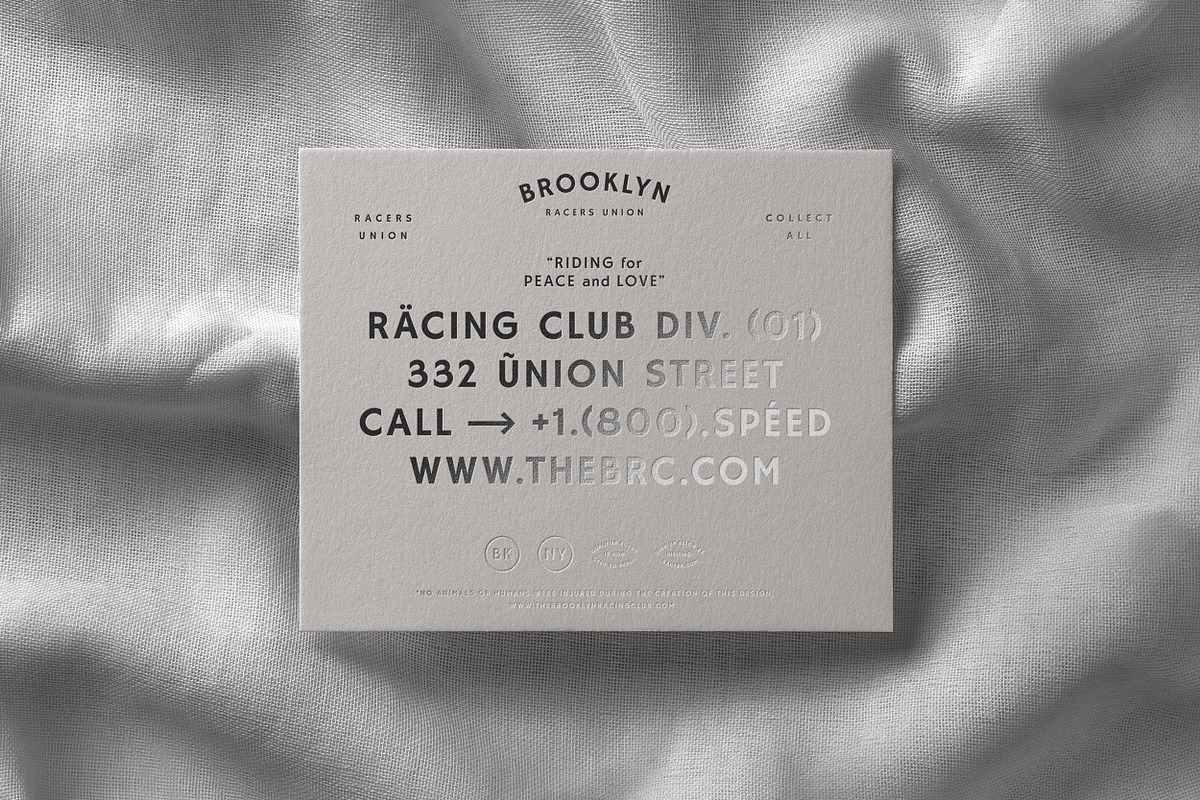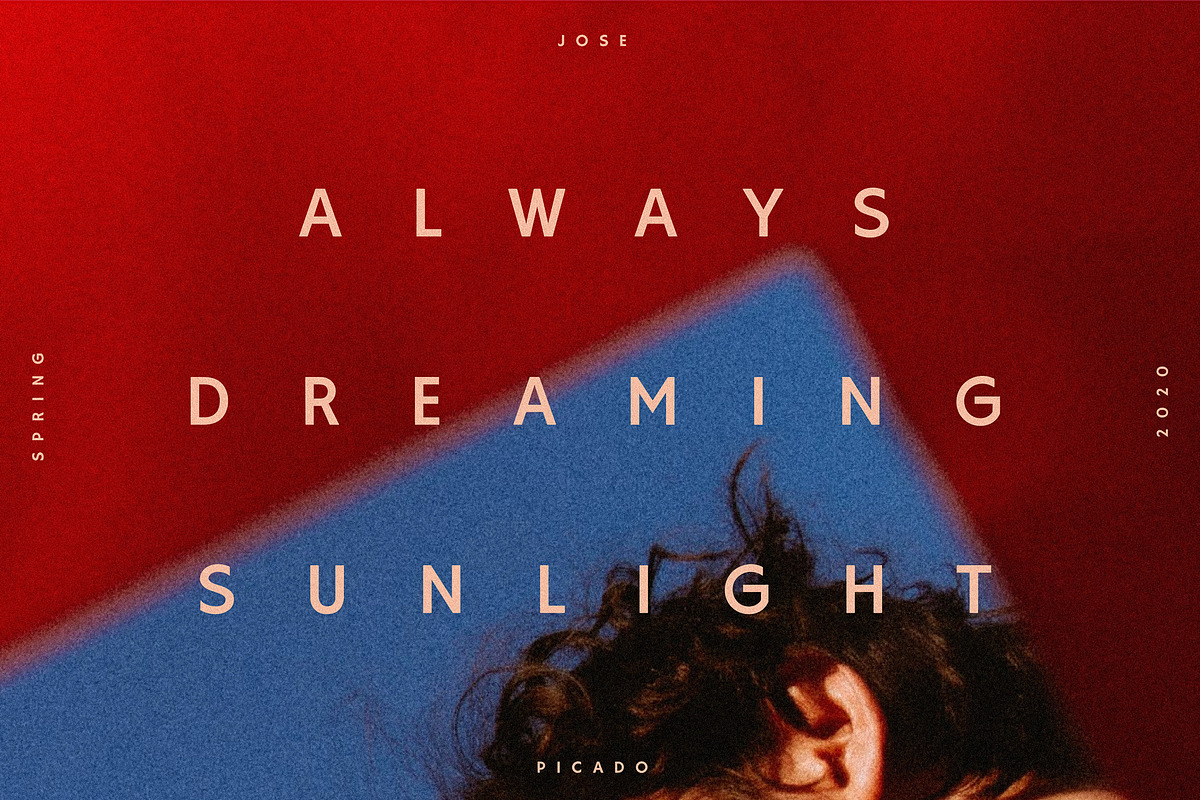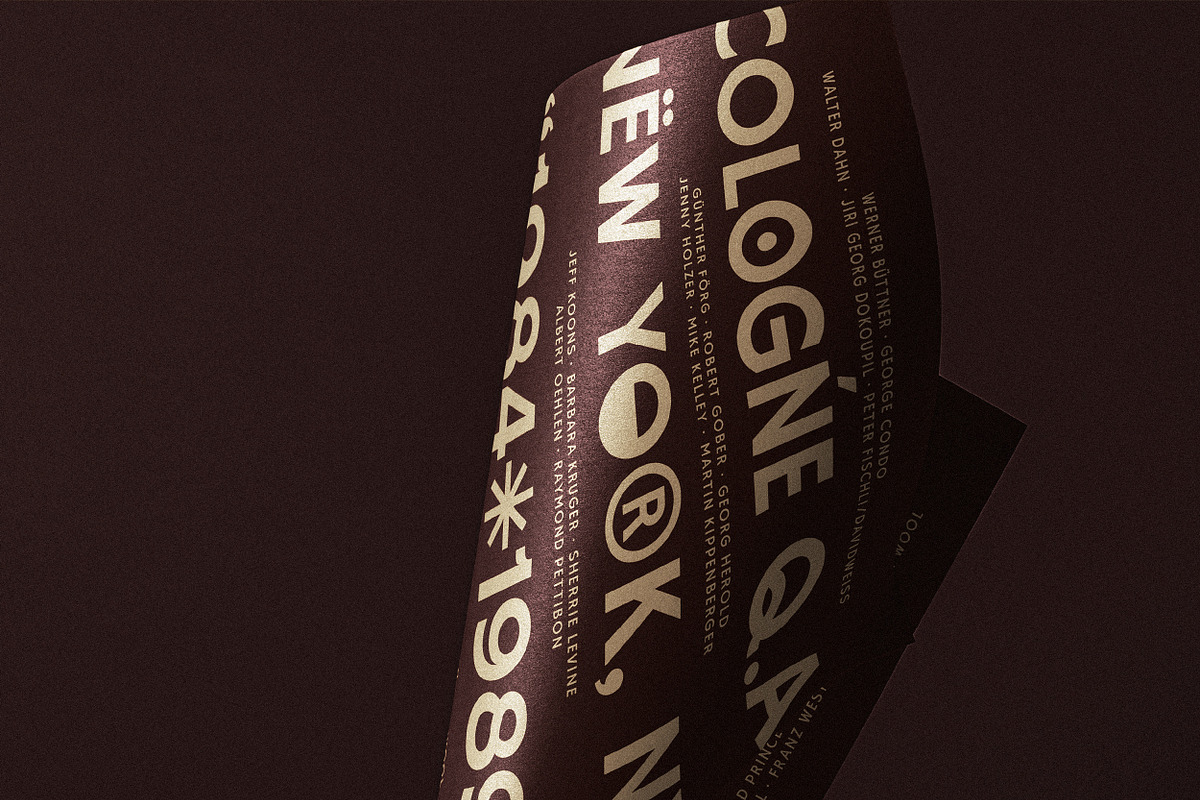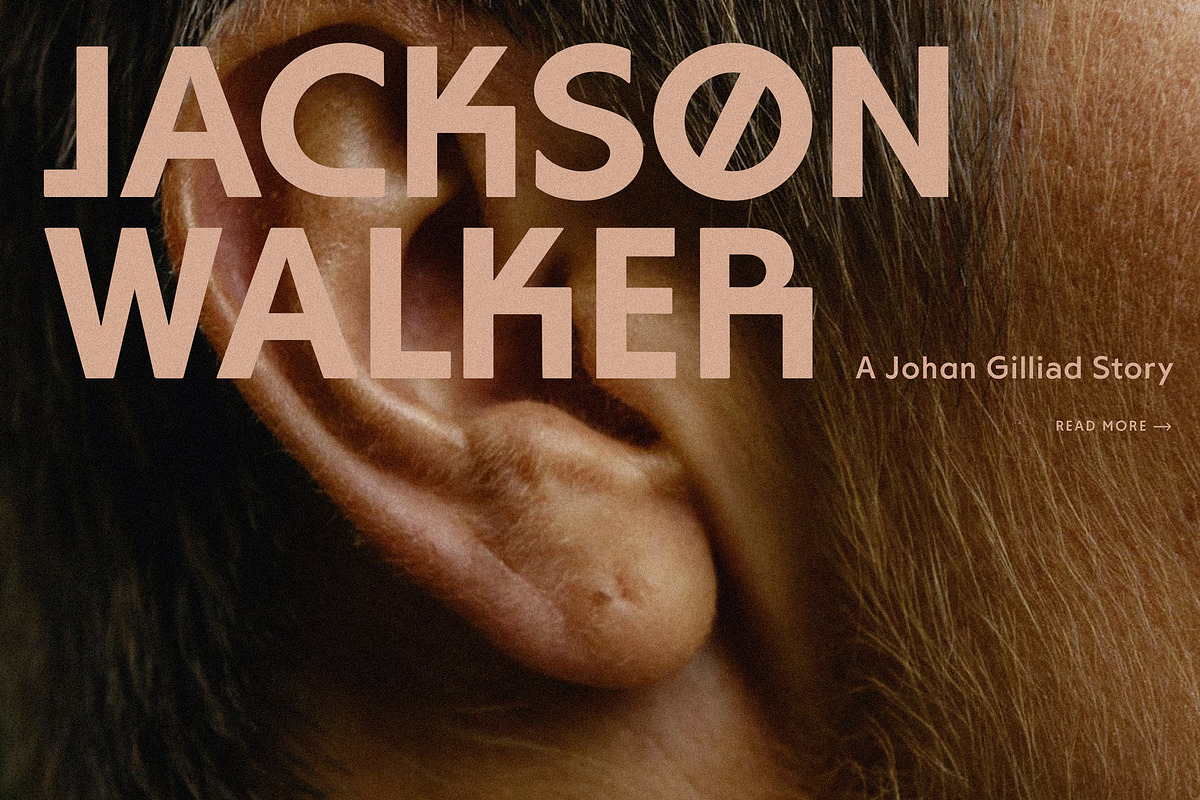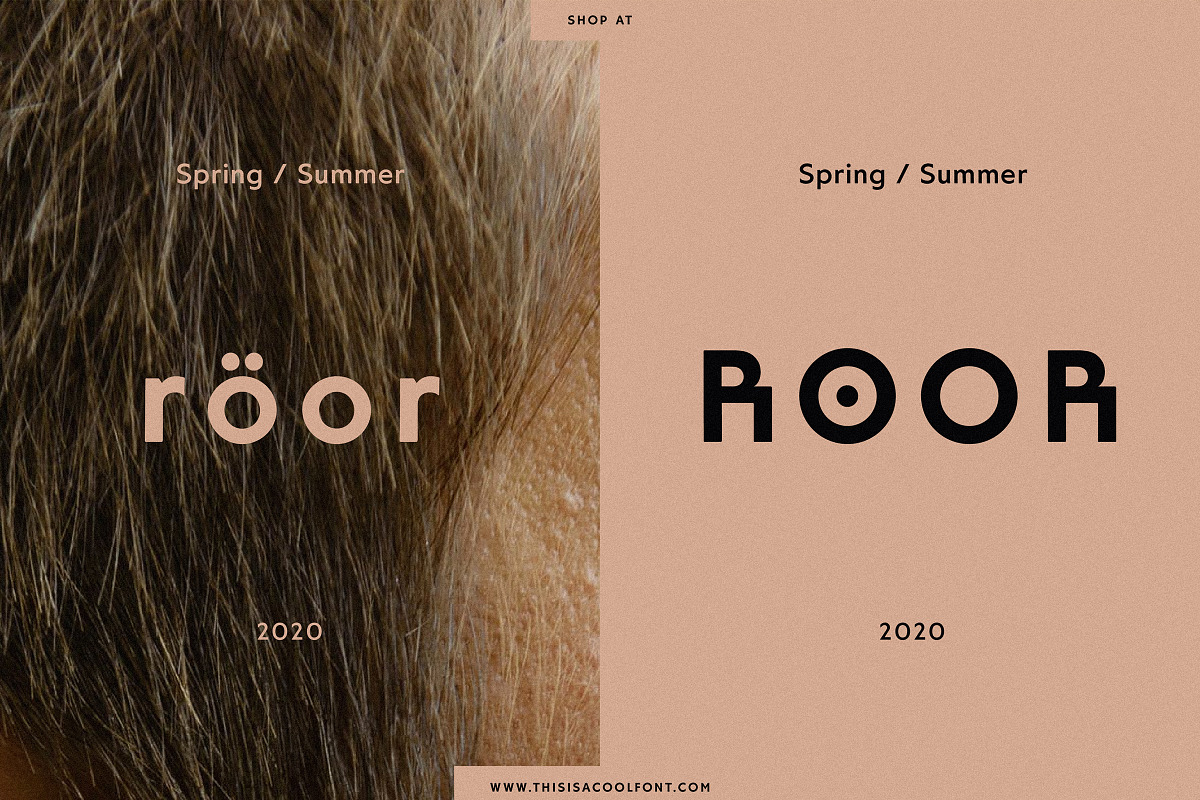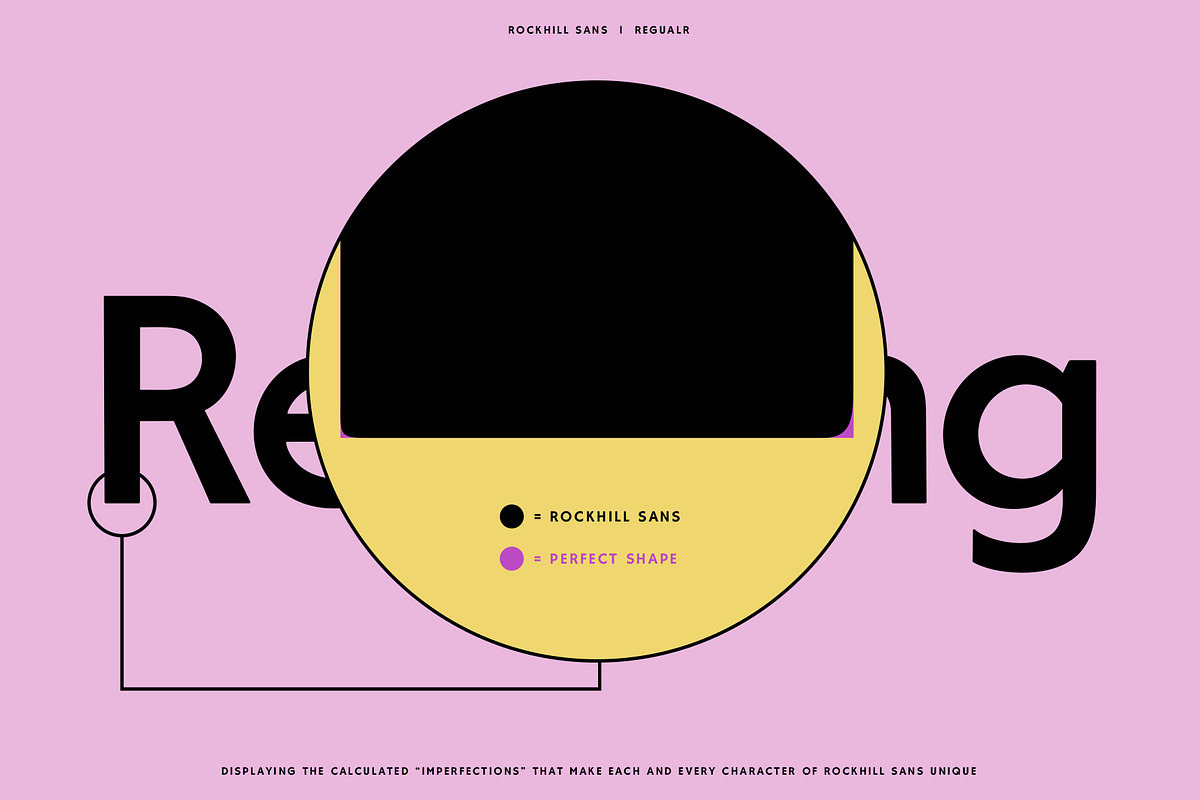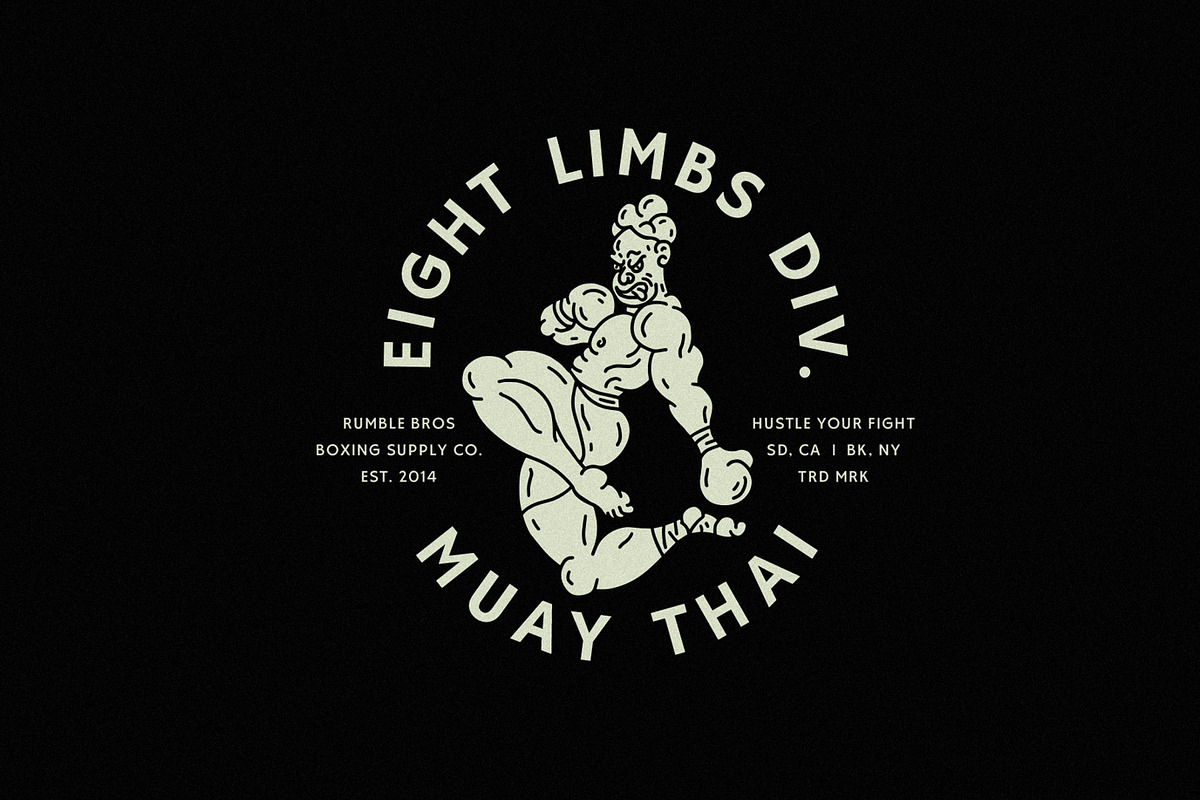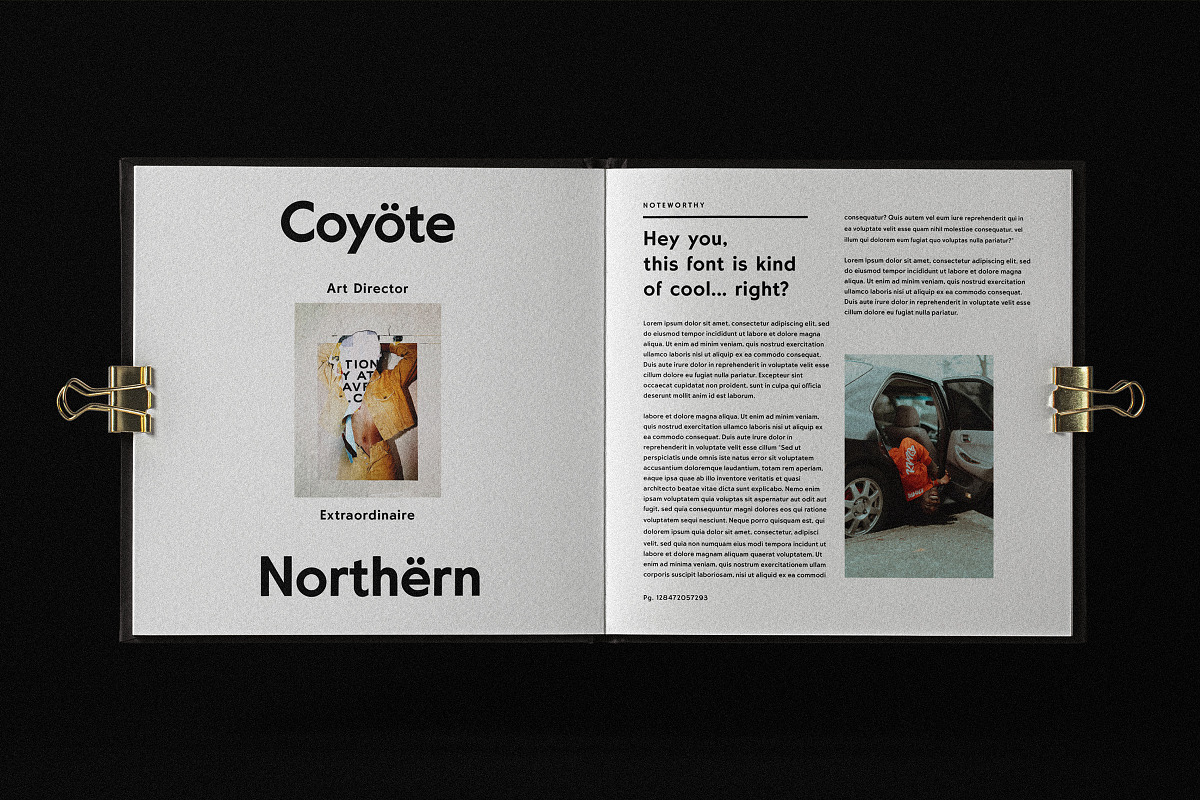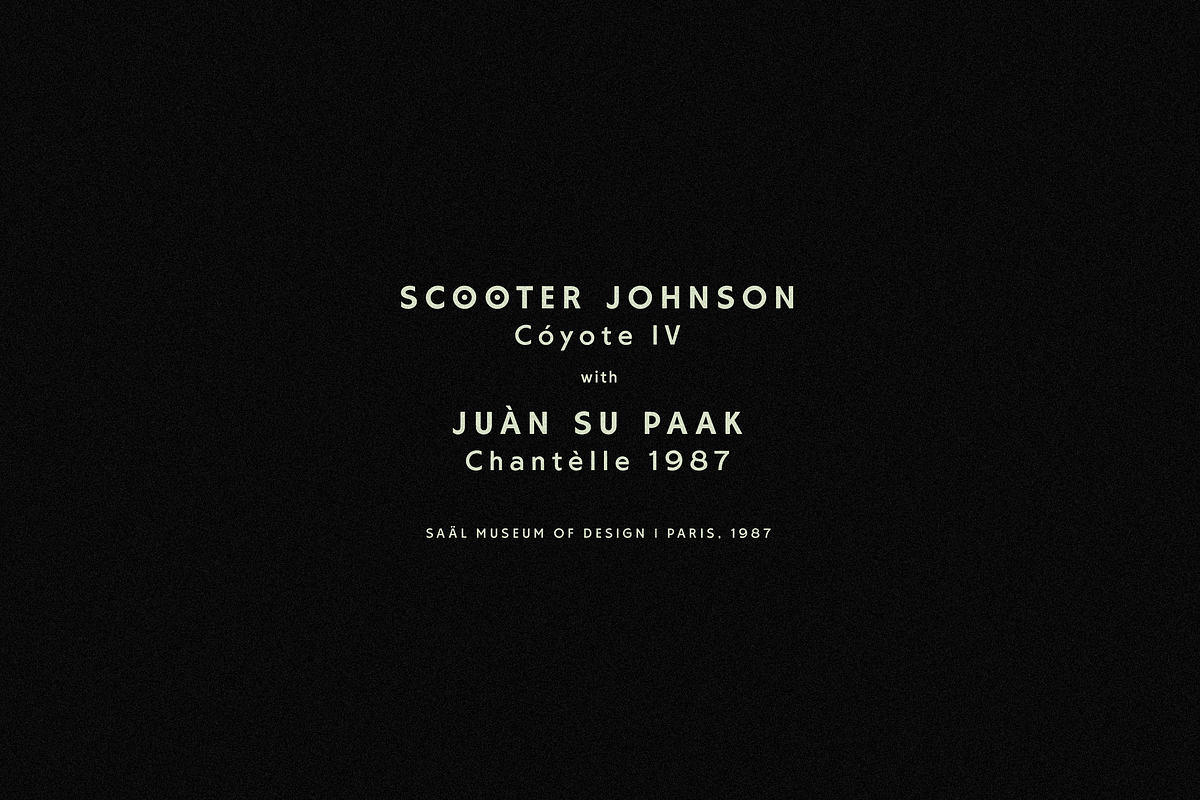
Inspired by hand-painted signage, Rockhill Sans is a diverse sans serif font family that can adapt to its surroundings. With 24 alternate character options, various styles & weights along with subtle calculated "imperfections" you can make a fashion ad look lux or a fun illustrated logotype for a boxing gym! Download now to start creating your own designs with Rockhill Sans!
- 4 Weights/Styles
- All Essential Characters & Glyphs + Many More
- 24 Alternate Primary Characters (Applies to Bold & Regular Weight Only)
- Accent Glyphs (Applies to Bold & Regular Weight Only)
- Kerned & Spaced